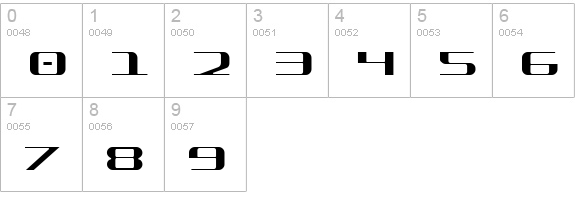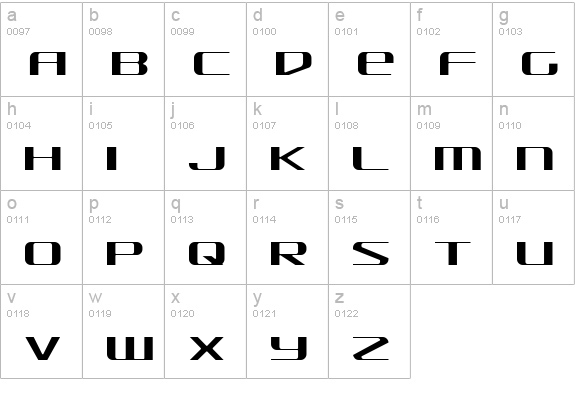
SDF Light is a refined, elegant variant in the SDF typeface family \xE2\x80\x94 well suited to elegant body text, refined sub-headings, and luxury branding.
SDF Light font is a sleek and modern typeface that exudes elegance and sophistication. With its clean lines and minimalist design, this font is perfect for a wide range of design projects. Whether you're creating a professional presentation, designing a website, or crafting a stylish logo, SDF Light font will add a touch of refinement to your work. What makes SDF Light font even more appealing is that it is available for free download at FontsMarket.com. This means you can easily access this beautiful font without having to spend a dime. Don't miss out on the opportunity to enhance your designs with the timeless beauty of SDF Light font - download it for free today!